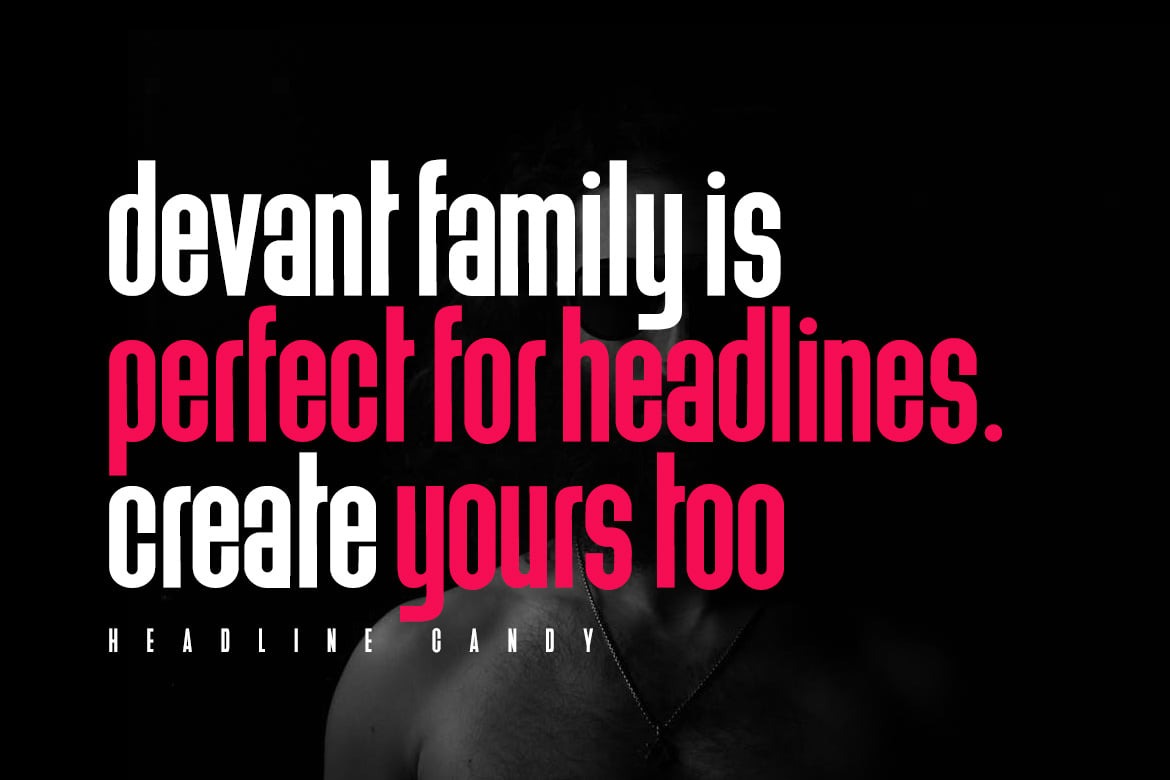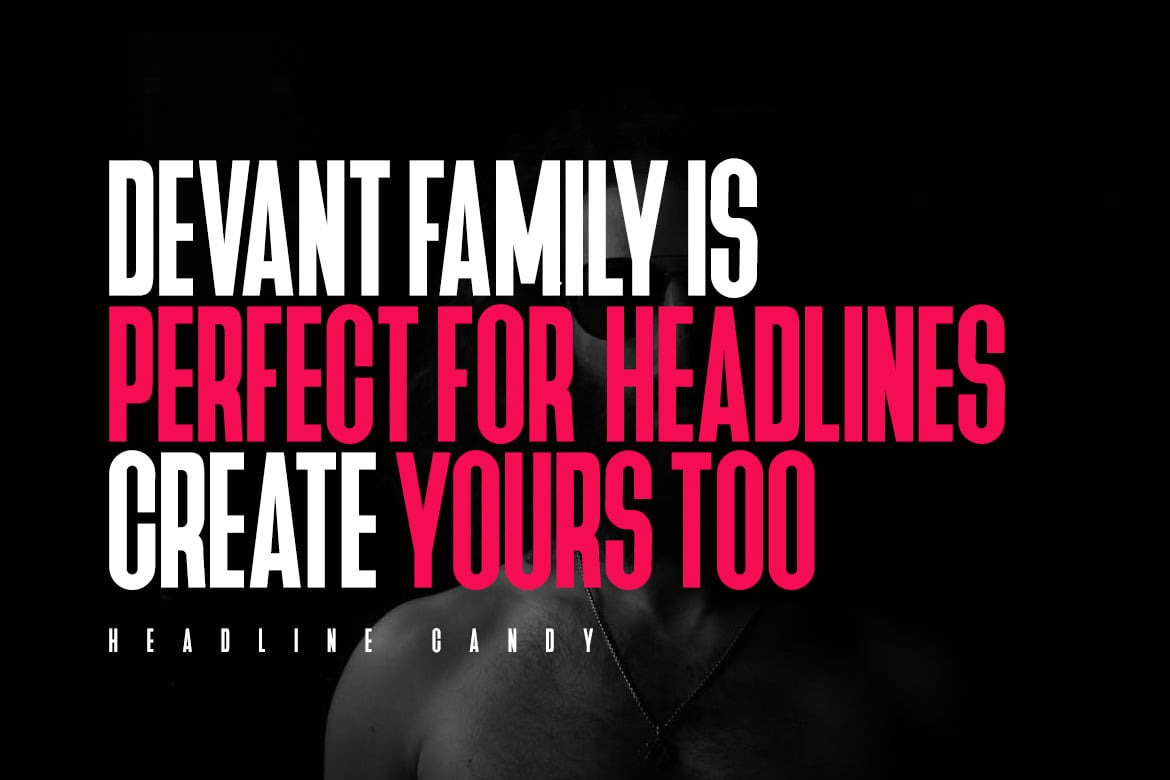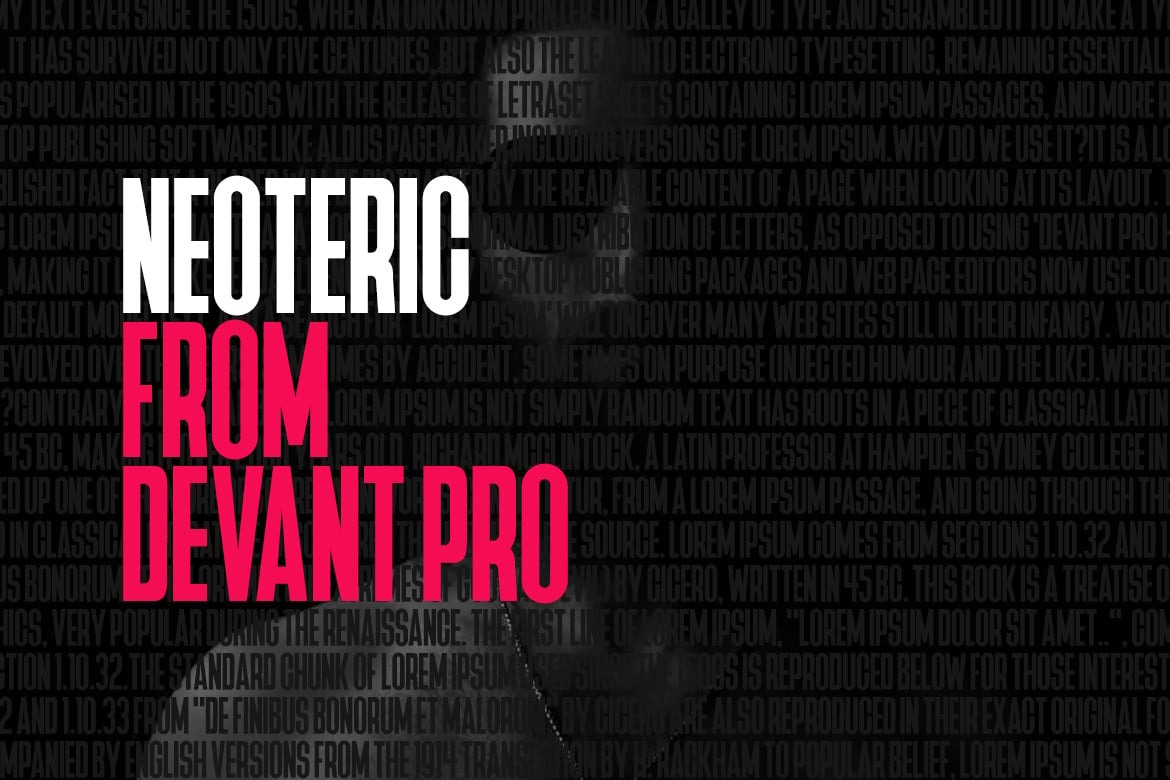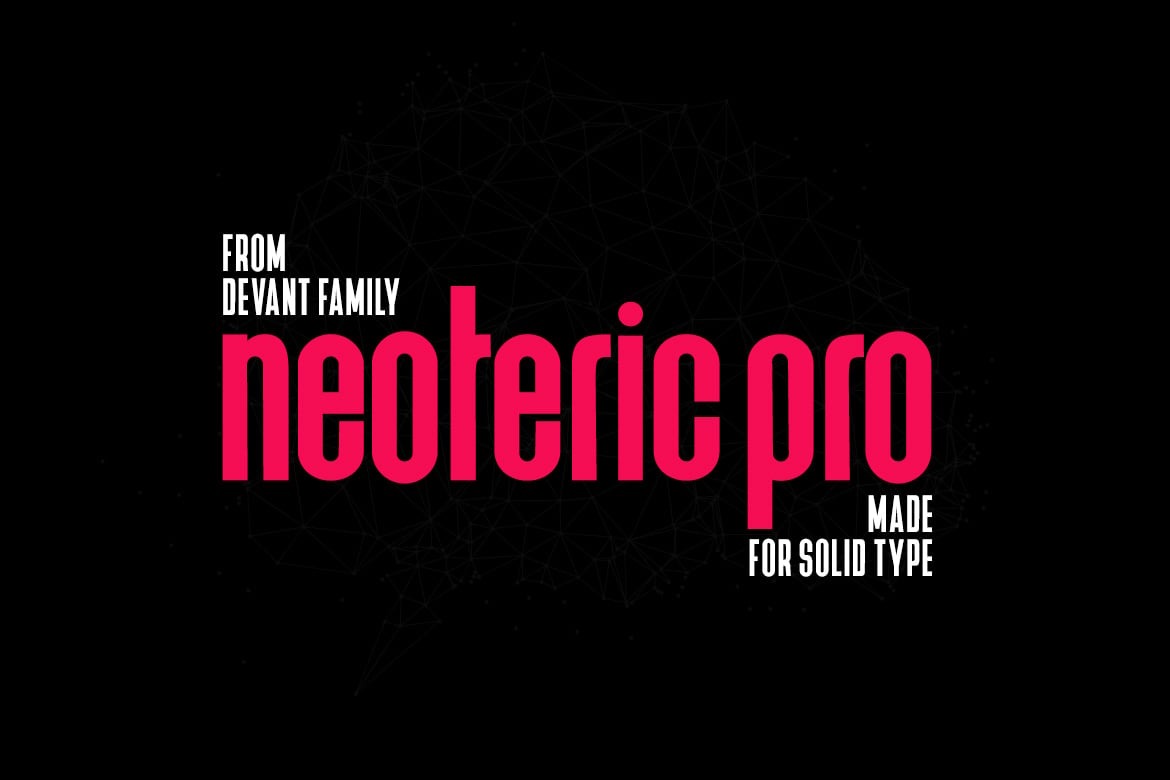
Devant Neoteric is a modern Sans Serif typeface very much suitable for Film Posters, headlines, Block letter, Subheading, Logo Designs, Big Banners. Classic & Decorative Typography Web Designs.The pack includes OTF, TTF and Web Fonts